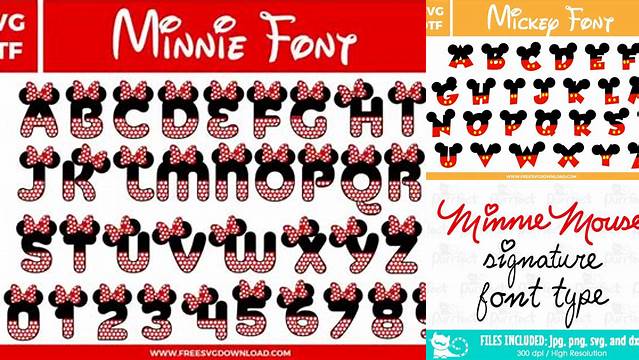
Minnie Mouse Font SVG: Magical Designs Guide
Hey there, design enthusiasts! Ready to sprinkle some Disney magic into your projects? This article is your ultimate guide to the Minnie Mouse Signature Font SVG, a fantastic resource for crafting everything from adorable invitations to charming home decor. We'll dive into what makes this font so special, where to find it, and how to use it to bring your creative visions to life. Get ready to unleash your inner artist and create some seriously delightful designs!
What is a Minnie Mouse Signature Font SVG?
First things first, let's break down what we're talking about. An SVG (Scalable Vector Graphics) file is a type of image file that uses mathematical equations to define the image, rather than pixels. This means you can resize an SVG without losing any quality – perfect for crafting! The Minnie Mouse Signature Font SVG is, in essence, a digital version of Minnie's iconic handwritten signature. It’s more than just a font; it's a piece of Disney history that you can incorporate into your work. Think of it like having a little piece of the magic at your fingertips. This font captures the essence of Minnie's playful and endearing personality, making it ideal for projects that need a touch of whimsy and charm. Imagine the possibilities: custom invitations for a Disney-themed party, personalized gifts for a loved one, or even stylish wall art for a nursery. With the Minnie Mouse Signature Font SVG, the only limit is your imagination.
Why Use the Minnie Mouse Signature Font SVG?
Now, why choose this particular font over others? Well, the Minnie Mouse Signature Font SVG brings a unique blend of nostalgia and style. It’s instantly recognizable and adds a special touch that other fonts simply can't match. Using this font allows you to infuse your projects with a sense of joy and familiarity that resonates with Disney fans of all ages. Plus, its versatility makes it suitable for a wide range of projects. Whether you're a seasoned designer or a crafting newbie, this font is easy to use and customize. The ability to scale the SVG without quality loss ensures your designs always look sharp and professional. Think about it: a custom-made birthday card featuring Minnie's signature, a name tag for a Disney trip, or even a set of personalized stickers for a little one's belongings. The font’s charming style enhances any project, making it more visually appealing and memorable. The Minnie Mouse Signature Font SVG isn't just a tool; it's a way to connect with the magic of Disney and share that joy with others. So, why wait? Add a dash of pixie dust to your next project and watch it come to life!
Tips for Choosing the Right SVG
When selecting a Minnie Mouse Signature Font SVG, consider a few key factors. First, assess the style of the font. Does it match the look you're going for? Look at the examples provided by the seller and visualize how the font would appear in your projects. Next, check the quality of the SVG. Make sure the lines are clean and the curves are smooth. You want a font that looks professional and easy to work with. Also, think about the file formats included. Ideally, the package should include SVG, as well as other formats like PNG or EPS for broader compatibility. Finally, always check the licensing terms. Are you allowed to use the font for commercial purposes? Do you need to give credit to the designer? Knowing the licensing details will protect you from any legal issues. Following these tips will help you find the perfect Minnie Mouse Signature Font SVG for your creative endeavors.
Using the Minnie Mouse Signature Font SVG in Your Projects
So, you've got your hands on the Minnie Mouse Signature Font SVG. Now what? Let's dive into how you can use it in your projects. Whether you're a seasoned designer or just starting out, you'll find that this font is incredibly versatile and easy to work with. Let's explore some practical applications.
Design Software Compatibility
The first step is to ensure that your design software can handle SVG files. Most modern design programs, such as Adobe Illustrator, CorelDRAW, Inkscape, and Silhouette Studio, support SVG files. If you're unsure, check the software's documentation or online tutorials. Once you've confirmed compatibility, simply open the SVG file in your design software. The font will appear as a vector graphic, which you can then resize, recolor, and manipulate to your liking. You might need to convert the SVG to a text object in some programs to use the font in a similar way as other fonts, this functionality varies across software.
Creative Project Ideas
Ready to get those creative juices flowing? Here are some ideas for using the Minnie Mouse Signature Font SVG:
Conclusion: Unleash Your Creativity with the Minnie Mouse Signature Font SVG
So there you have it – everything you need to know about the Minnie Mouse Signature Font SVG! From understanding its benefits to finding the perfect file and using it in your projects, you're now well-equipped to add some Disney magic to your designs. Remember, the Minnie Mouse Signature Font SVG is more than just a font; it's a gateway to a world of creativity and fun. So, go ahead, explore the possibilities, and let your imagination run wild. Happy crafting, and may your designs be filled with joy and enchantment!